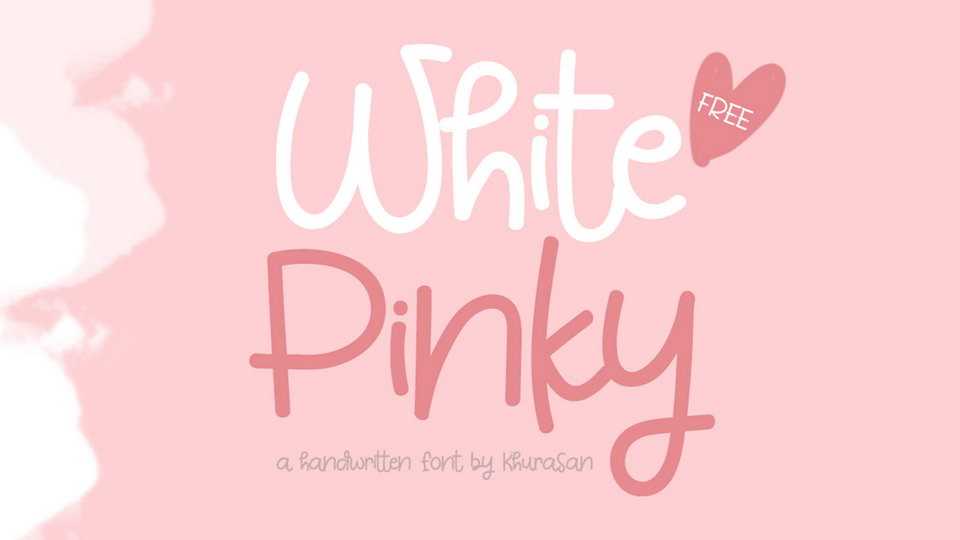
Download White Pinky font, a lovely handwritten font, simple and cute. Great for cards and letters, crafts, printed quotes, social media, kids products and more.